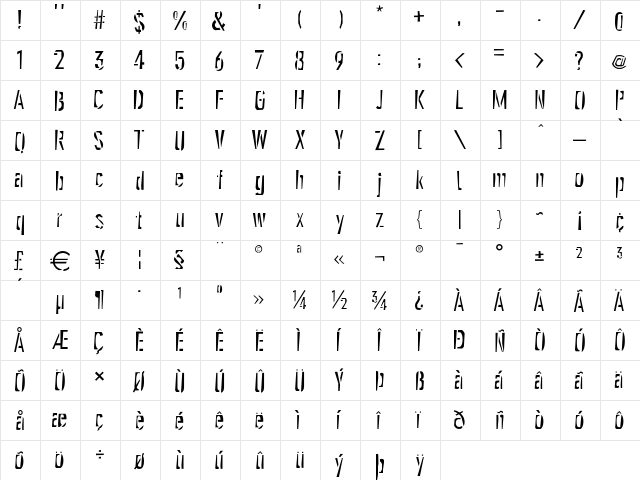
Gen Stencil
Design Context for Gen Typeface
Gen borrows the utilitarian aesthetic of stencil lettering, with its characteristic cutaways and no-frills construction lending an industrial edge.
A strong choice for packaging that needs edge, warehouse aesthetics, and rough-and-ready visual identities.
Pro Tip: Use Gen at large sizes on packaging, posters, or apparel where the stencil cutaways read clearly. Avoid small sizes where those gaps become visual noise.